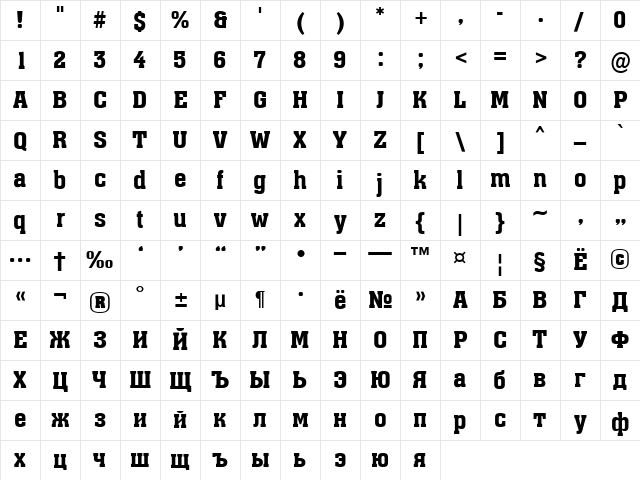
Complete a_Assuan Medium glyph index. Displaying only characters natively supported by a_Assuan Medium font.
a_Assuan is a composed and adaptable typeface that performs quietly and consistently across a wide range of design contexts.